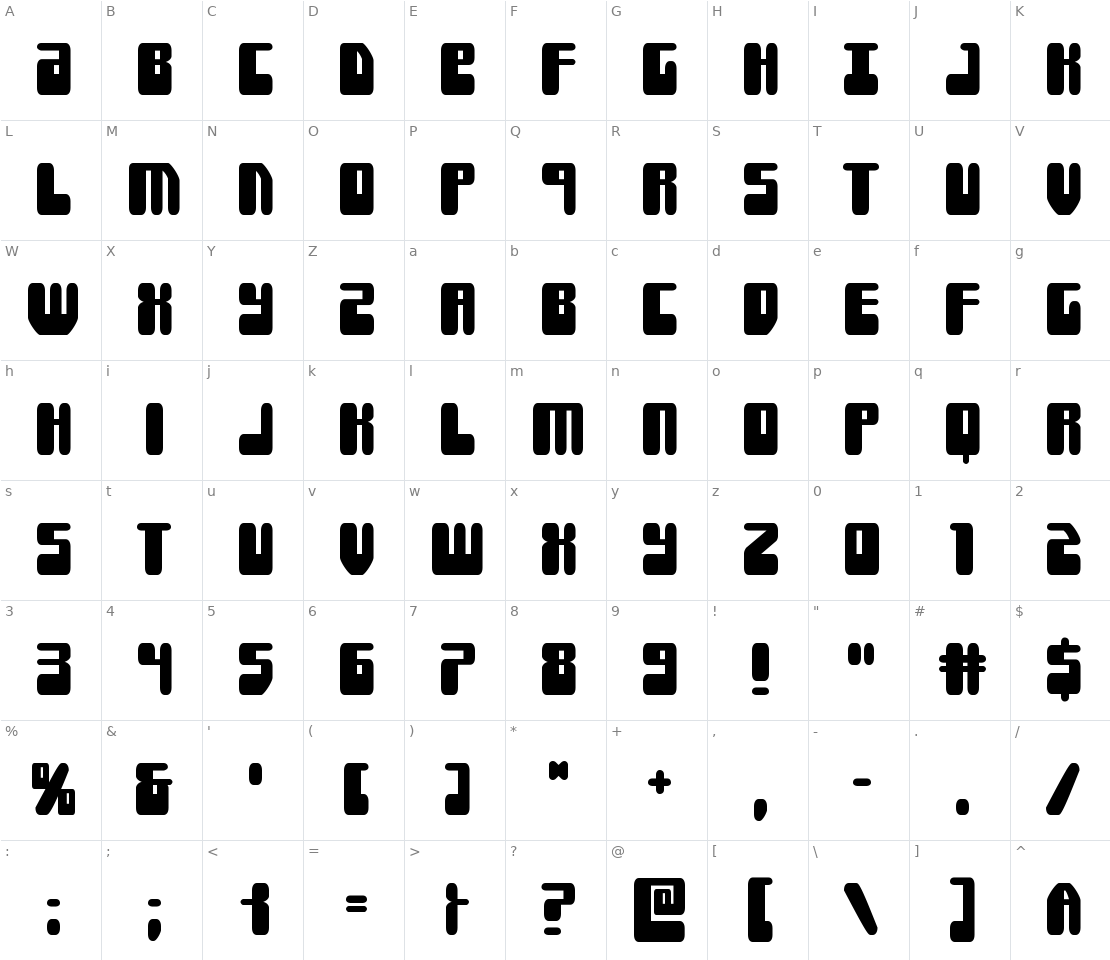
Force Majeure
Force Majeure is a wide, heavy geometric display face from Iconian Fonts with blocky letterforms that feel like they were built to withstand impact. The proportions are broad and deliberate, giving each character a commanding footprint that fills space with authority. Best at large sizes for headlines, posters, and sci-fi or tech-oriented branding where you need something bold enough to anchor the entire layout.